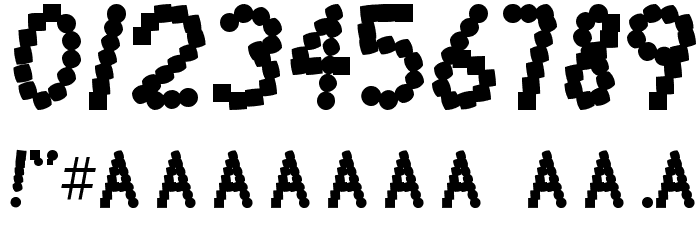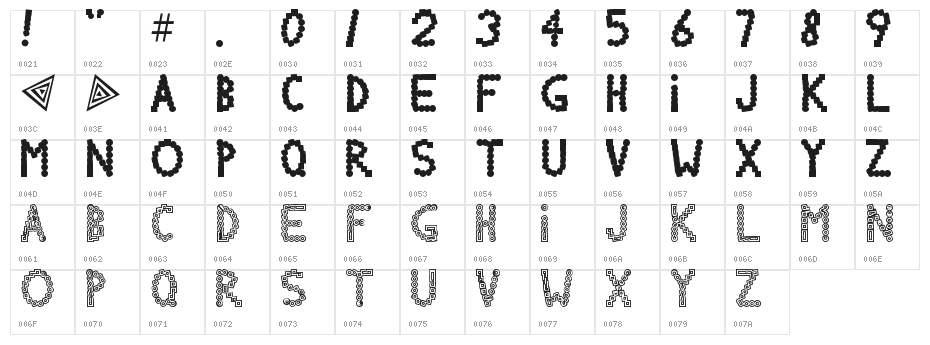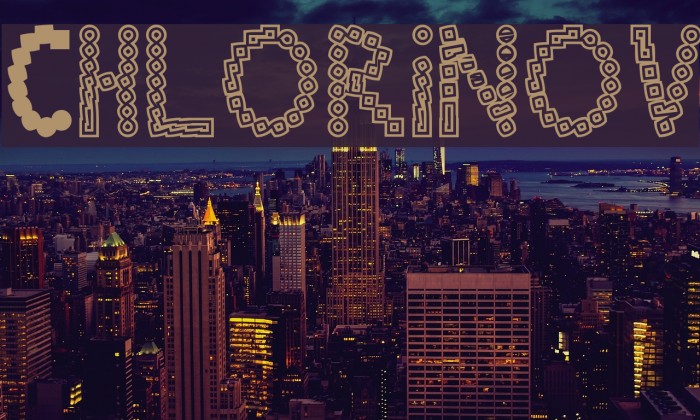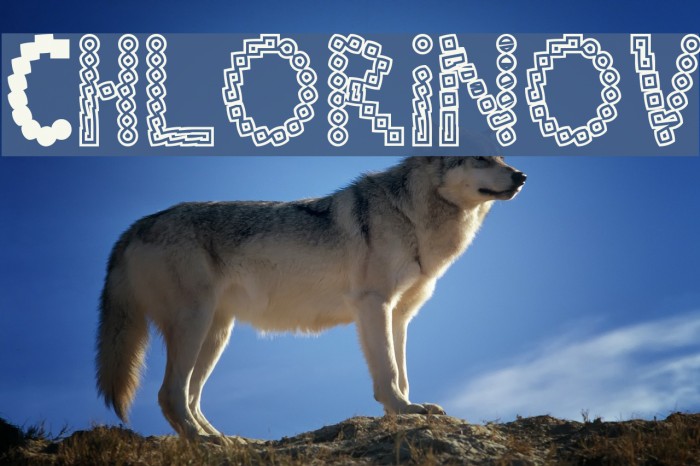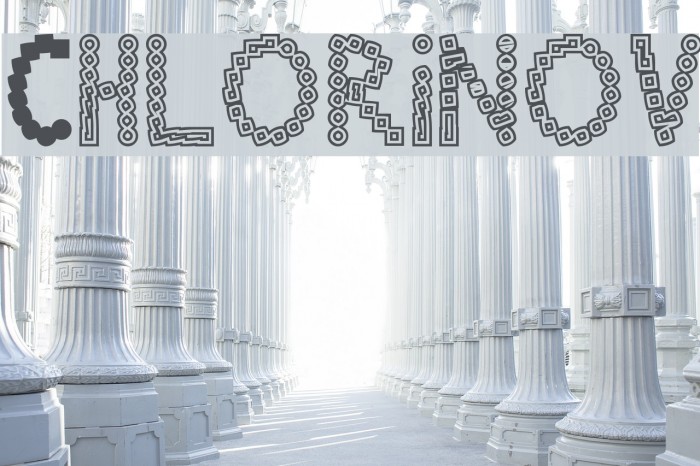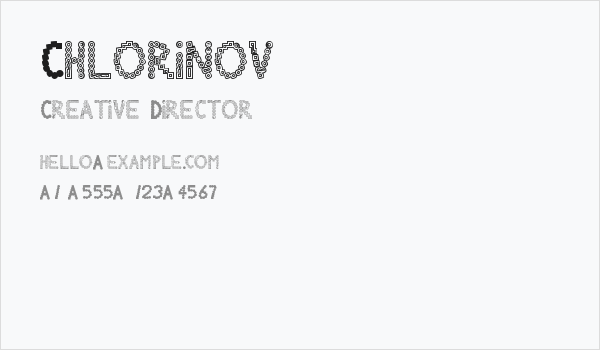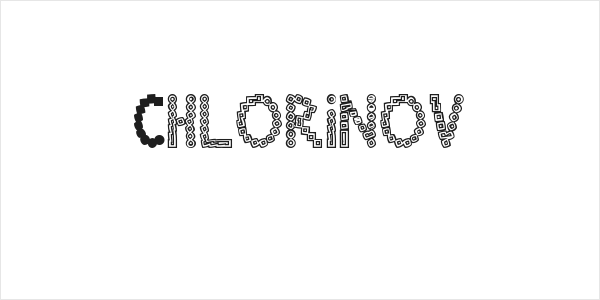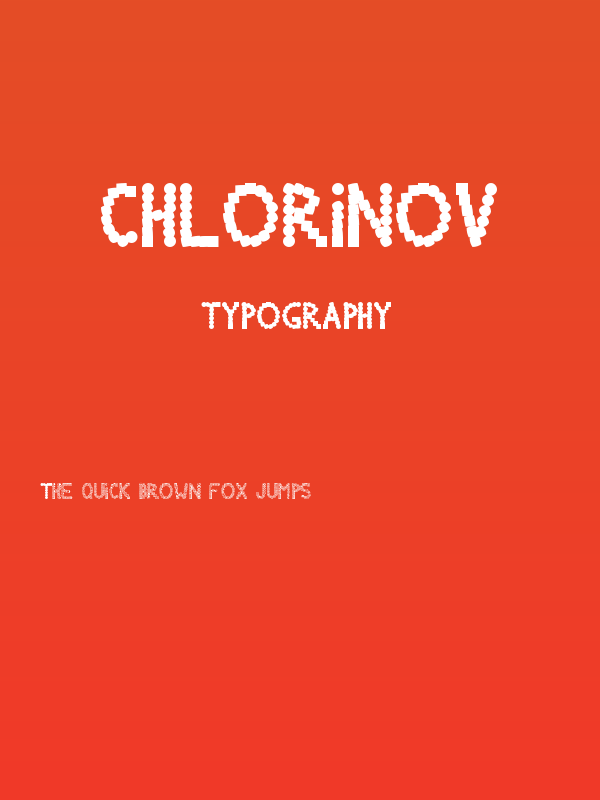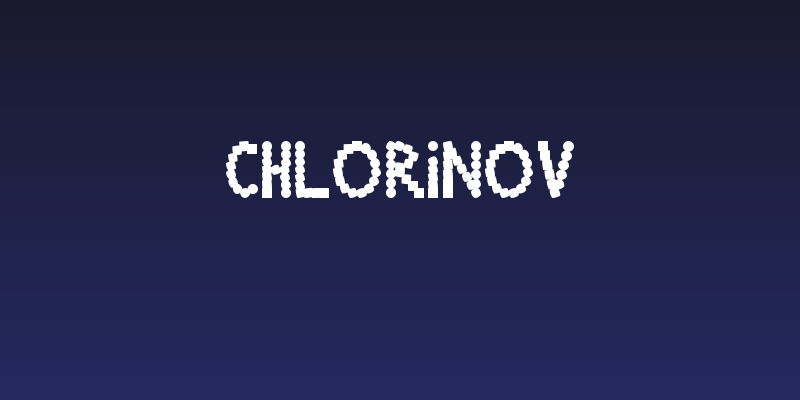
Chlorinov Font
Chlorinov Description
This font features a playful and geometric design, characterized by its use of circular and block-like elements to form each character. The uppercase and lowercase letters, as well as numbers and special characters, are constructed with a series of connected circles or squares, giving the font a unique, pixelated appearance. The style is reminiscent of retro digital displays or video game graphics, making it stand out with its bold and quirky aesthetic. The font's structure is consistent across all characters, maintaining a uniform look that is both eye-catching and distinctive.
| Overall Style | Retro, Playful |
| Use Case | Logos, Posters, Digital Art |
| Proposed Projects | Ideal for video game graphics, retro-themed posters, digital art projects, and playful branding. |